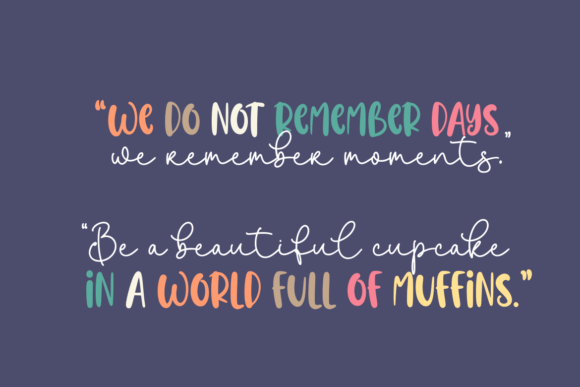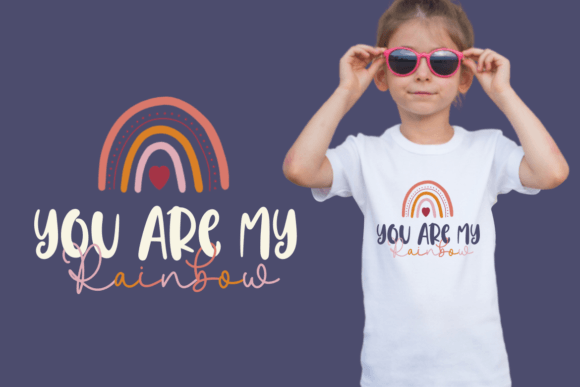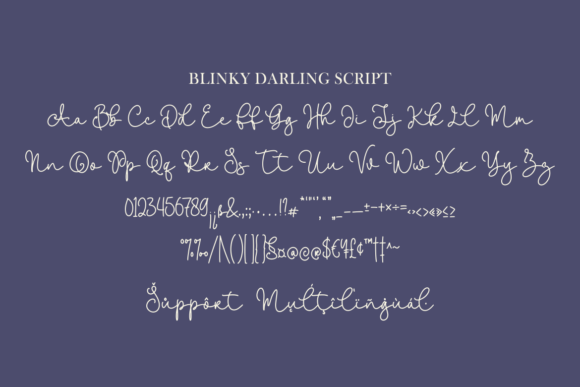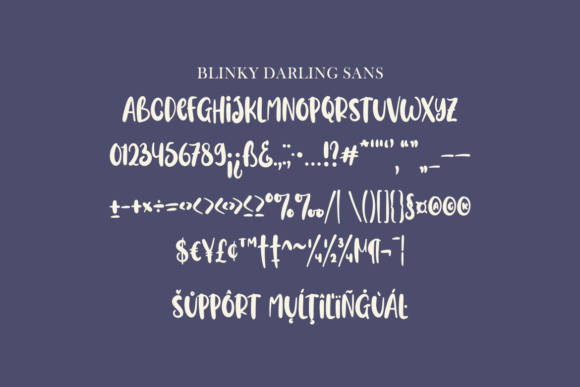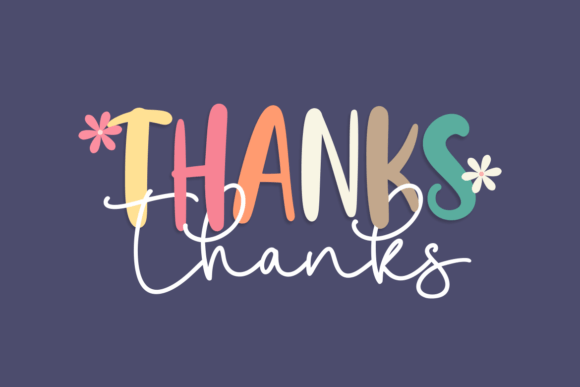
Introduction to Blinky Darling Duo Font
Blinky Darling is a lovely, cute, and greatly detailed duo font (script and sans serif).
This font will guarantee a romantic touch to each of your creations .
Key Features of Blinky Darling Duo Font